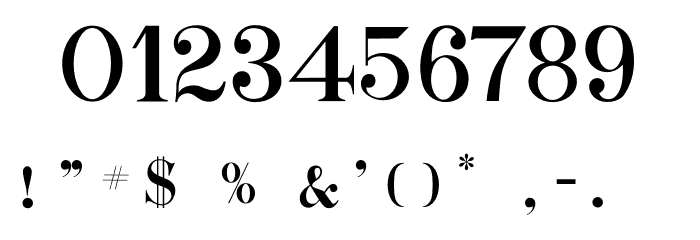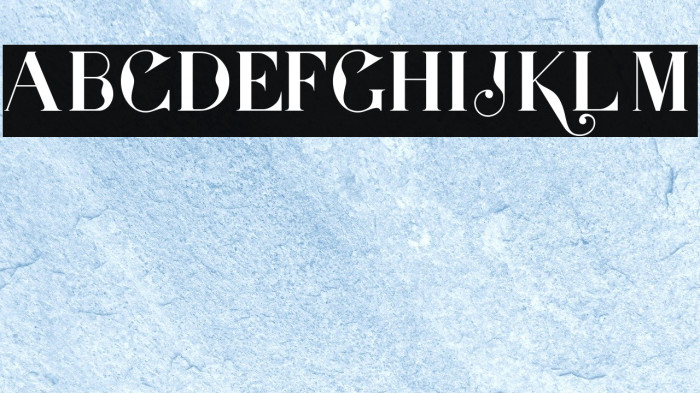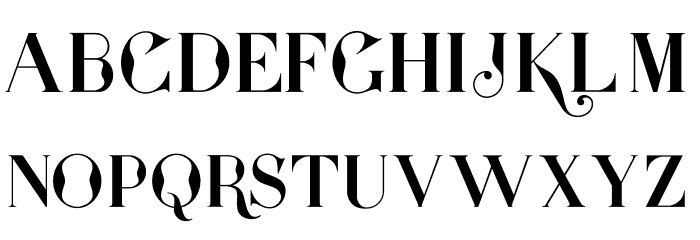
Presidente serif Font
Presidente serif Description
This font features a sophisticated and elegant serif design, characterized by its high contrast between thick and thin strokes. The uppercase letters exhibit a distinct flair with decorative swashes, particularly noticeable in characters like 'G', 'Q', and 'R'. The numerals maintain the same elegant style, with a consistent stroke contrast that enhances readability. The special characters are crafted with the same attention to detail, ensuring a cohesive look across all glyphs. This font's refined style makes it suitable for projects that require a touch of class and sophistication.
| Overall Style | Classic |
| Proposed Projects | Ideal for luxury branding, wedding invitations, editorial design, and high-end product packaging. |